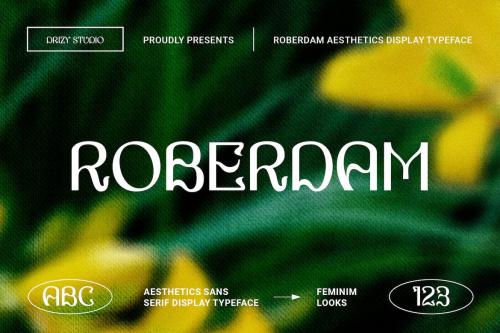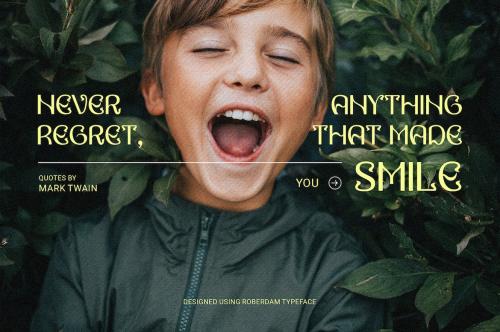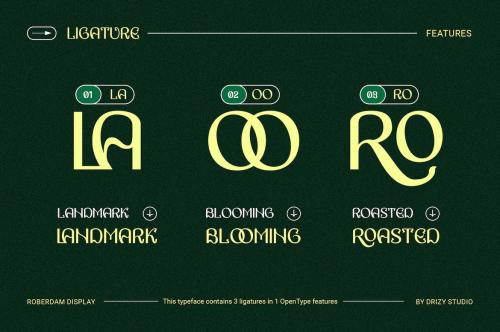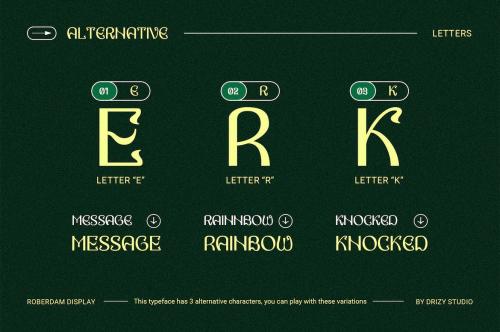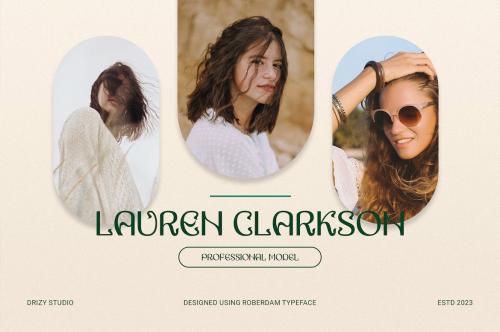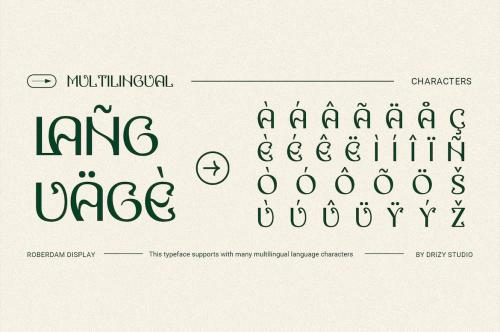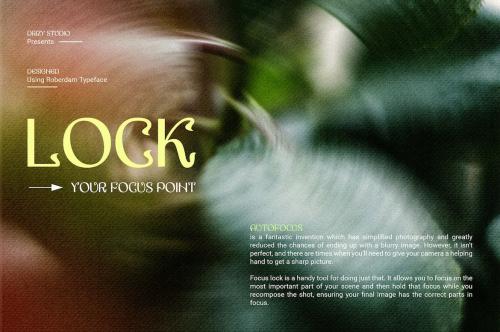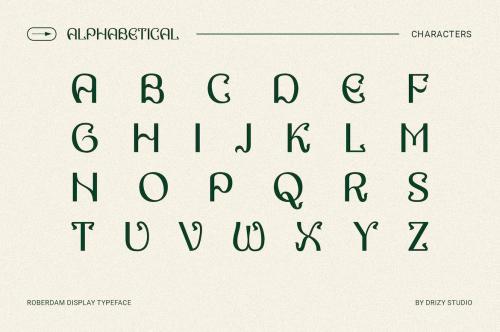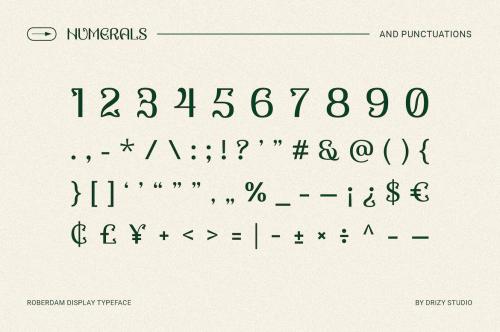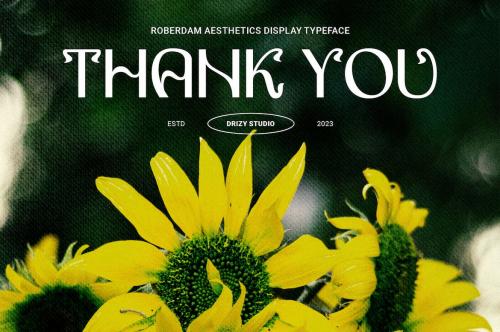
罗伯特姆 - 简体美学字体
Roberdam - Sans Serif Aesthetic Font
"Introducing Roberdam - Sans Serif Aesthetic Font – a typeface that effortlessly blends the simplicity of sans-serif with a touch of artistic flair. This font style is designed to captivate the eye, offering a unique balance between modern minimalism and an aesthetic edge.
Roberdam features:
Character Set
Punctuation & Numbers
Multilingual Support
Alternates
Ligatures
Elevate and explore the design possibilities with this classic font!